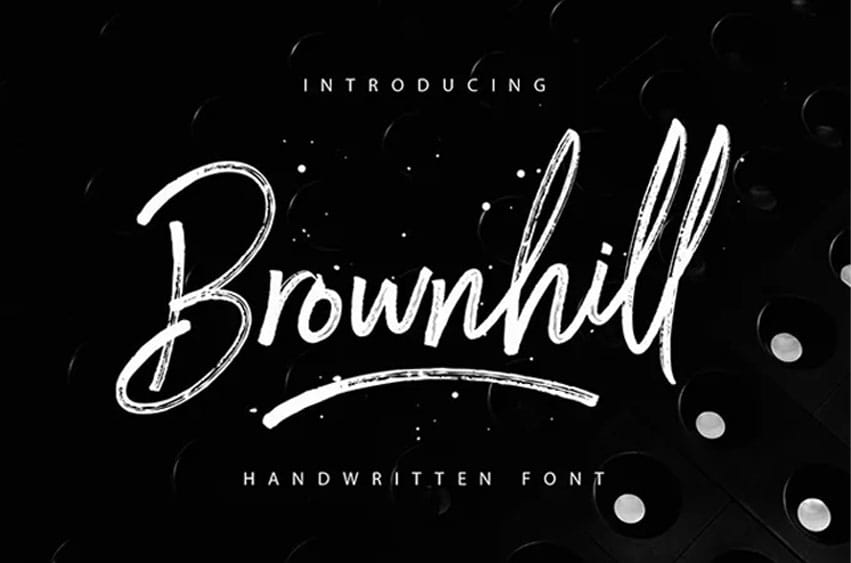
Brownhill Font by Sizimon is a beautiful handwritten kit for logos, handwriting quotes, and packaging design logotype concepts. Likely to melt and work perfectly for social media, greeting cards and merchandise designs since it makes the making of T-shirts and merchandise easy.
Conveniently allocate time while creating a product using this set of upper and lower cases of the document, punctuation marks, and other punctuation symbols.